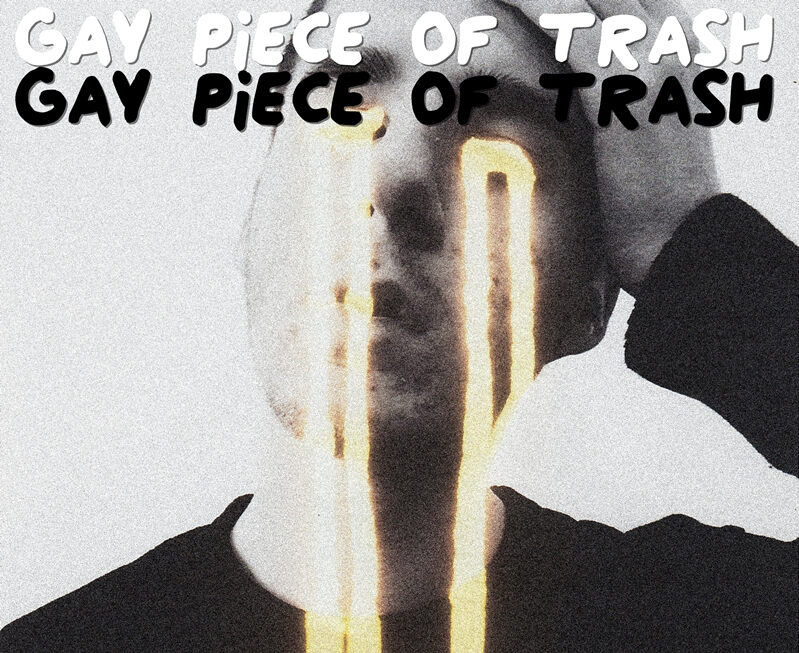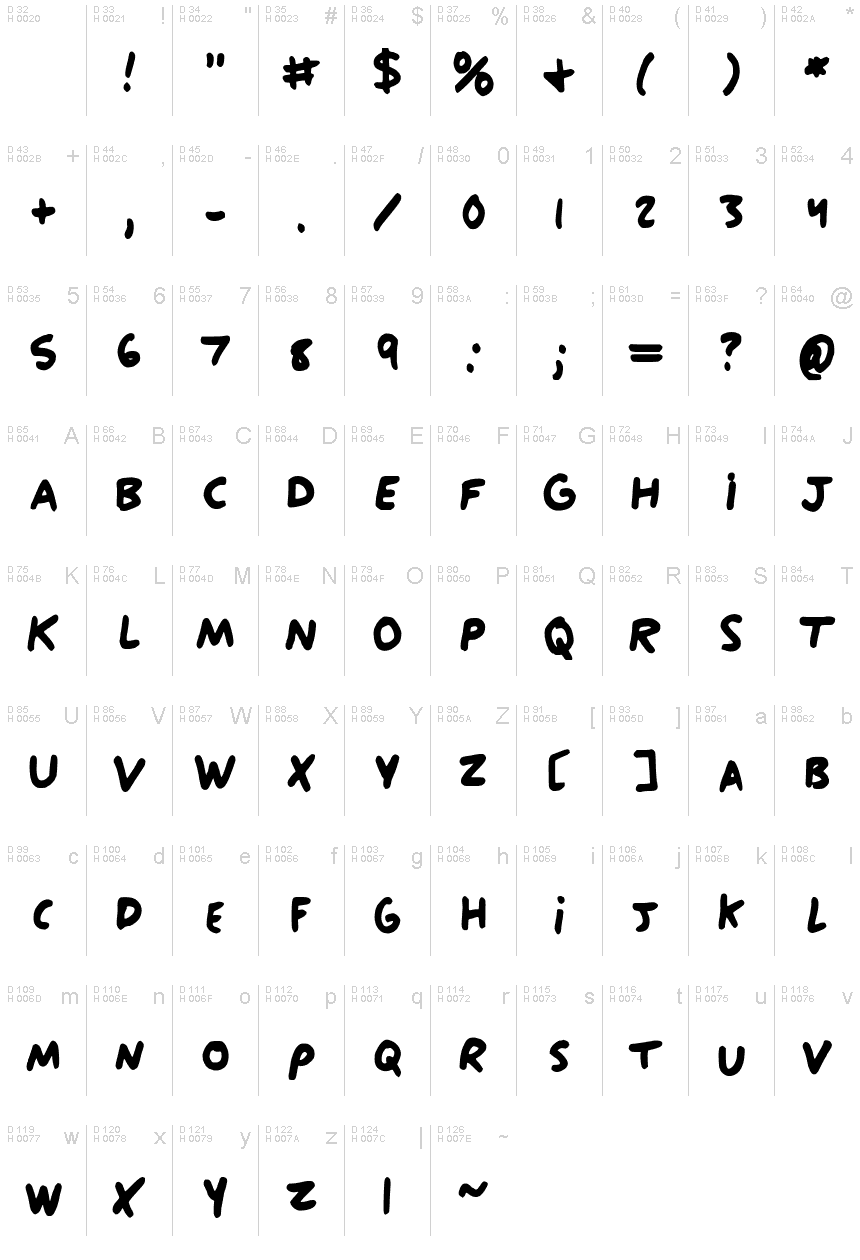
Gay_Piece_of_Trash
Gay Piece of Trash font is a casual handwritten font designed by Logan Benedict.
I created this font from my handwriting for the queer art book I published and thought someone out there could use it. It's best used in caps with lowercase i's :~)